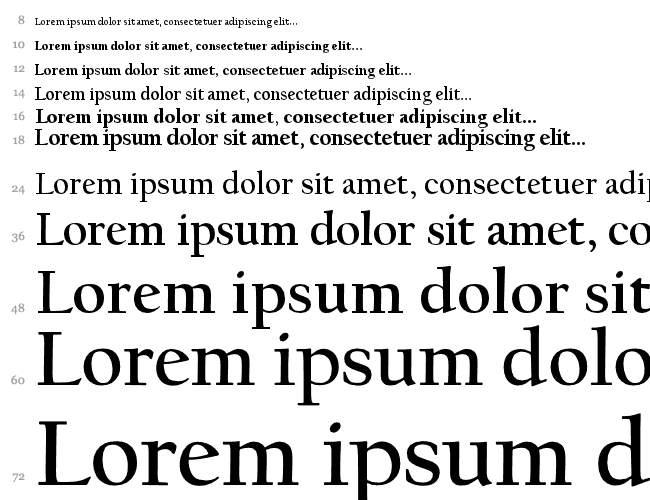
The publisher is the font bureau, inc. Font californian fb with the bold characteristic belongs to the californian fb font family.
Browse by popularity, category or alphabetical listing. This font uploaded 11 january 2013. David berlow californian fb italic in 1938 goudy designed california oldstyle & italic, perhaps his most distinguished typeface, for private use of the university of california press.
Font examples of californian fb regular are available at azfonts. You can use the californian fb to create interesting designs, covers, shop and store name and logos. In 1958 lanston reissued it generally as californian.